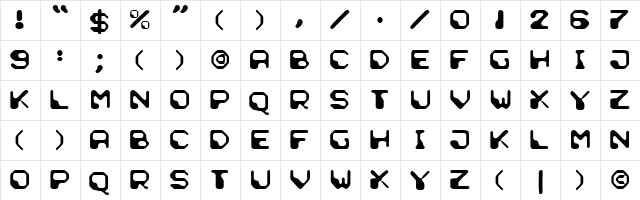
Demun Lotion Normal
Design Context for Demun Lotion Typeface
Demun Lotion offers clean, dependable letterforms without strong stylistic allegiance, making it a practical choice for designers who need flexibility.
Pro Tip: Pair Demun Lotion with a font of contrasting weight or personality to build a more expressive typographic hierarchy.